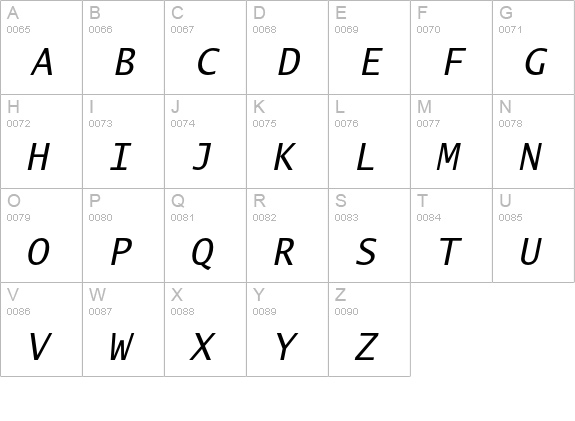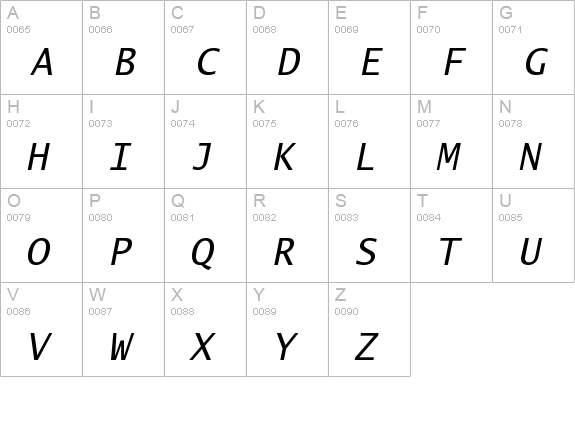
LucidaSansTypeEF-Obl Font Details
LucidaSansTypeEF-Obl is a stylish and elegant font that exudes a sense of sophistication and modernity. Its sleek and slanted design adds a unique touch to any project, making it stand out effortlessly. The letters are beautifully crafted with a subtle touch of obliqueness, giving them a dynamic and engaging appearance. What makes LucidaSansTypeEF-Obl even more appealing is that it is available for free download at FontsMarket.com. This means you can easily access this stunning font without any cost, making it a valuable addition to your design toolkit. Whether you are working on a professional project, creating eye-catching graphics, or simply looking to enhance your typography collection, LucidaSansTypeEF-Obl is the perfect choice. With its free availability and versatile design, this font is sure to elevate your creative work to the next level.